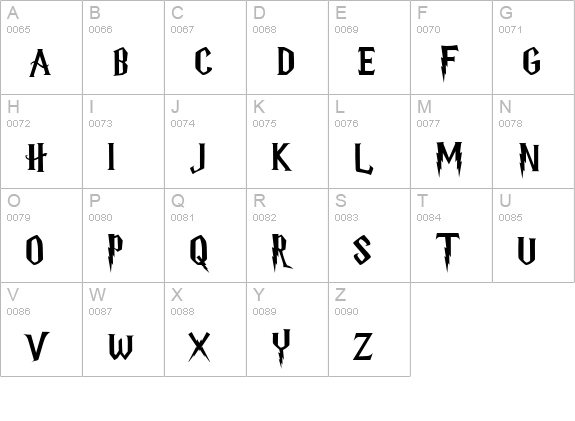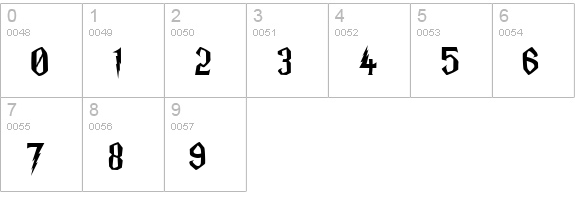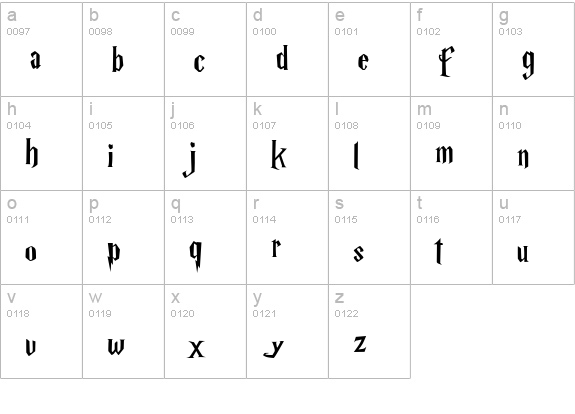
Harry P Font Details
Introducing Harry P, a remarkable font inspired by the enchanting world of magic and wizardry. With its whimsical curves and mystical charm, Harry P is the perfect choice for adding a touch of wizardry to your designs. Whether you are creating spellbinding invitations, bewitching posters, or captivating book covers, this font will transport your audience into a realm of wonder and awe. But what makes Harry P truly extraordinary is that it is completely free! That's right, this captivating font can be freely downloaded at FontsMarket.com. Now, you can unlock the power of Harry P without any cost, allowing your creativity to soar without limitations. With its wide range of glyphs and characters, Harry P offers versatility and flexibility for any project. Its elegant and distinctive letterforms embody the essence of the magical world, making it a must-have for any designer seeking to infuse a touch of enchantment into their work. The smooth curves and intricate details of Harry P will captivate and mesmerize your audience, drawing them into a spellbinding experience. Whether used for headlines, titles, or body text, this font's readability and legibility ensure that your message will shine through, leaving a lasting impression. So, why wait? Embrace the magic and download Harry P for free at FontsMarket.com today. Unleash your imagination, and let this extraordinary font transport you to a world where anything is possible. The only limit is your own creativity.